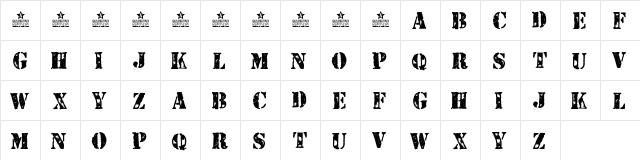
STENCILED PERSONAL USE Regular
| Foundry | Billy Argel |
| Designer | Billy Argel |
Design Context for STENCILED PERSONAL USE Typeface
STENCILED PERSONAL USE borrows the utilitarian aesthetic of stencil lettering, with its characteristic cutaways and no-frills construction lending an industrial edge.
Ideal for industrial branding, streetwear, military-adjacent aesthetics, and urban signage projects.
Pro Tip: Pair STENCILED PERSONAL USE with raw, utilitarian design elements — exposed concrete textures, flat colour, and minimal ornamentation suit it well.